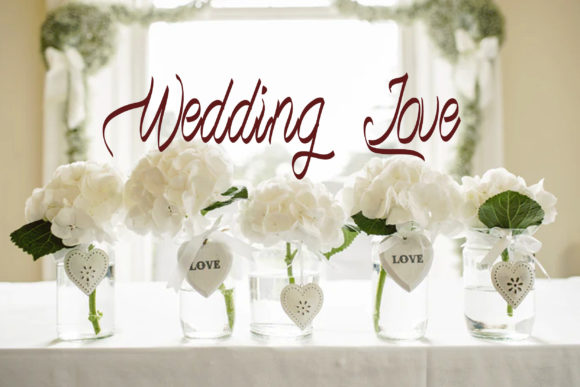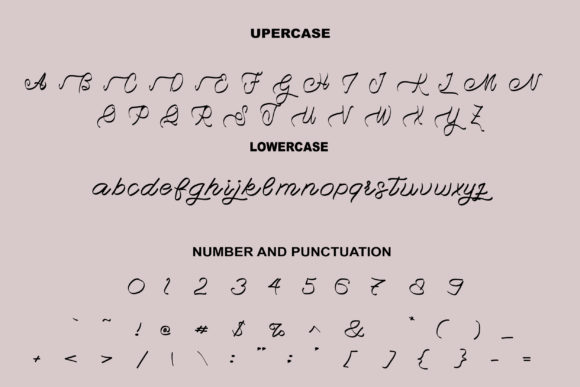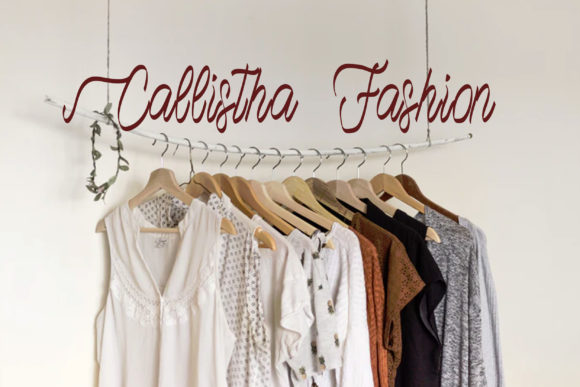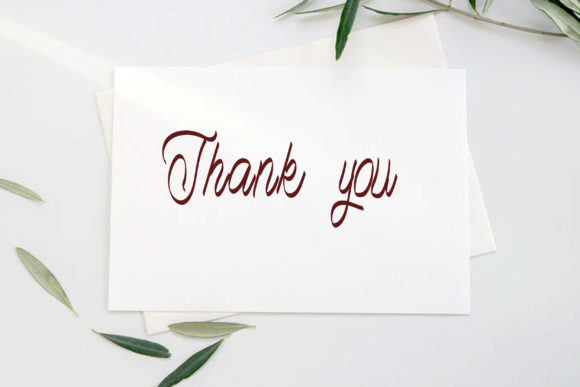
Introducing Callistha Font: The Epitome of Elegance and Sophistication
In the realm of typography, few fonts manage to convey the essence of luxury and refinement as effortlessly as Callistha. This chic, refined script font has been turning heads with its sophisticated aesthetic, making it an ideal choice for designers and crafters seeking to elevate their projects. With its stylish alternates and ligatures, Callistha is the perfect match for any endeavor that demands a touch of elegance.
The Design Philosophy Behind Callistha
Callistha’s design is rooted in the tradition of classic script typography, yet it boasts a modern flair that sets it apart from more traditional fonts. Each letter is meticulously crafted to exude a sense of fluidity and harmony, ensuring that the font reads beautifully in both digital and print formats. The attention to detail in Callistha’s creation is evident, from the subtle variations in line width to the graceful connections between letters.
Key Features of Callistha Font
- Stylish Alternates: Callistha comes equipped with a range of stylish alternates for many of its letters. These alternates offer designers the flexibility to customize their text, adding a unique touch to their projects.
- Ligatures: The font includes a set of ligatures, which are special characters that combine two or more letters into a single glyph. These ligatures not only enhance the aesthetic appeal of the text but also improve readability.
- Elegant Swashes: For those looking to add a bit more drama to their designs, Callistha offers elegant swashes that can be used to begin or end words, adding a flourish of sophistication.
- Versatile Use: Whether you’re working on a luxury brand logo, a wedding invitation, a fashion magazine, or any project that requires a touch of elegance, Callistha proves to be incredibly versatile.
Why Choose Callistha for Your Projects?
There are several reasons why Callistha stands out as a go-to font for designers and crafters:
- Uniqueness: In a sea of generic fonts, Callistha offers a distinctive look that can help your project stand out.
- Readability: Despite its elegant and cursive nature, Callistha maintains excellent readability, making it suitable for both headings and body text.
- Customization: The availability of alternates and ligatures allows for a high degree of customization, enabling designers to tailor the font to their project’s specific needs.
- Timeless Appeal: The classic roots of Callistha ensure that it won’t go out of style anytime soon, providing a timeless appeal that can benefit projects with a long lifespan.
How to Use Callistha Effectively in Your Designs
To make the most of Callistha, consider the following tips:
- Pair it with Contrasting Fonts: When using Callistha for headings, pair it with a simpler, sans-serif font for body text to create visual contrast.
- Experiment with Ligatures and Alternates: Don’t be afraid to experiment with the ligatures and alternates to find the perfect combination that suits your project’s tone.
- Adjust Letter Spacing: For optimal readability, adjust the letter spacing according to the context in which Callistha is being used.
Callistha font is a powerful tool in the arsenal of any designer or crafter looking to imbue their projects with a sense of sophistication and elegance. Its combination of stylish alternates, ligatures, and elegant swashes makes it a versatile and timeless choice. Whether you’re aiming to create a luxurious brand identity, a beautiful wedding invitation, or a captivating magazine spread, Callistha is sure to exceed your expectations.
In the world of typography, Callistha stands as a testament to the enduring appeal of well-crafted script fonts. With its refined aesthetic and practical features, it’s no wonder that Callistha has quickly become a favorite among design professionals. As you explore the possibilities with Callistha, you’ll discover why it’s not just a font, but a statement of elegance and refinement.